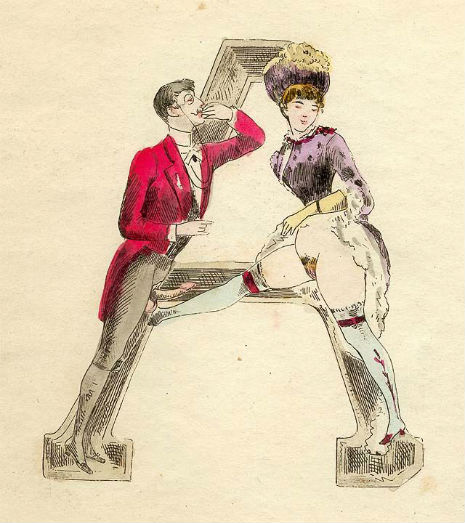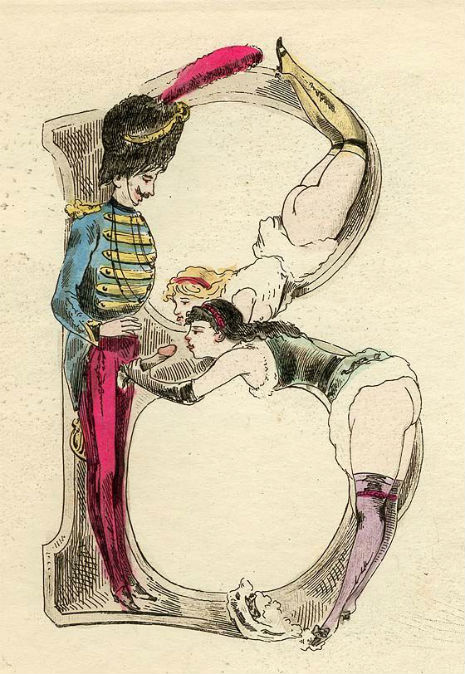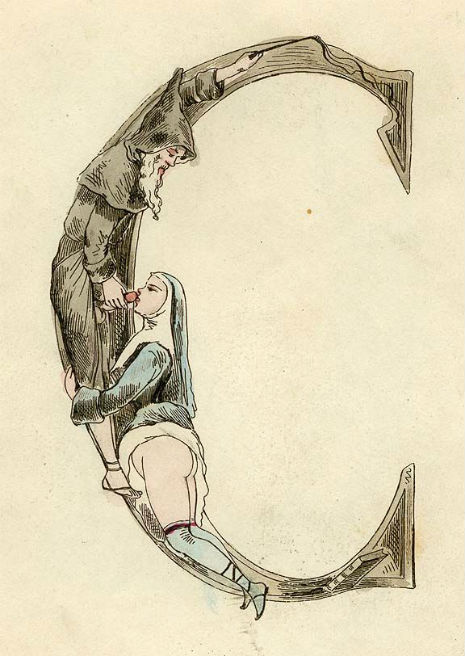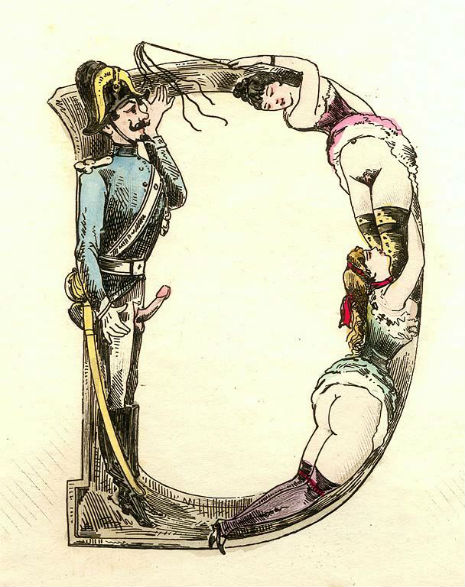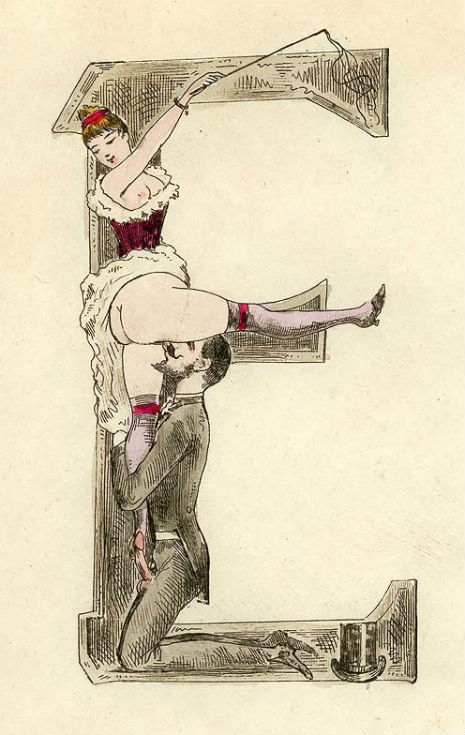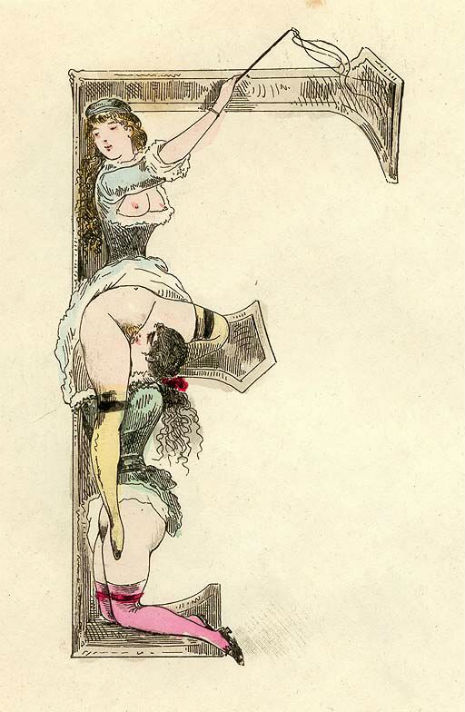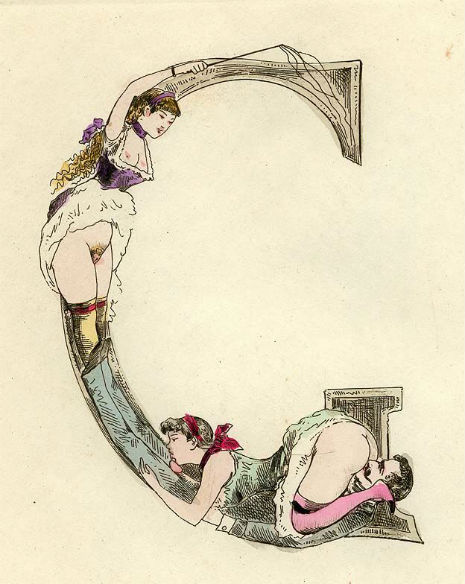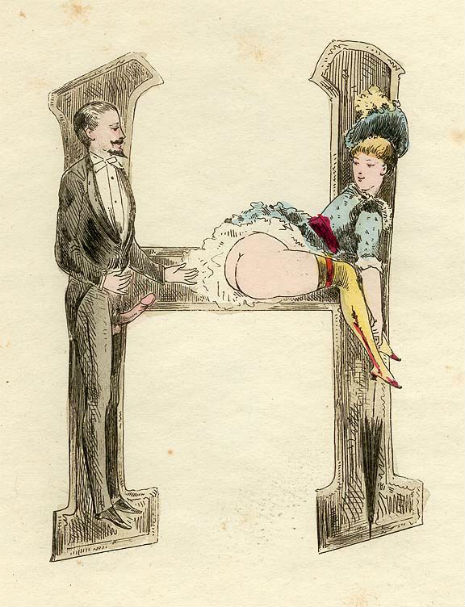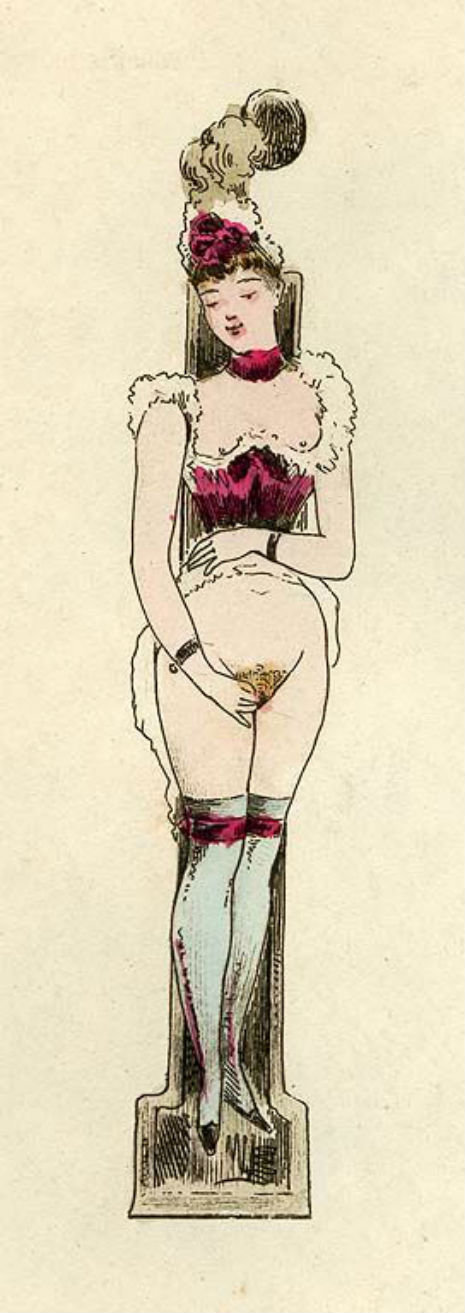
Your new favorite 19th-century naughty erotic typeface (NSFW)
I couldn’t find much about 19th century German artist Heinrich Lossow’s “smutty” alaphabet. In fact, I could only find one single online source that had all of Lossow’s dirty typeface together on one page. Perhaps there’s a reason why: these illustrations are also credited to a French artist namedJoseph Apoux. According to Apoux’s brief Wikipedia page, the series is called Erotic Alphabet and date back to 1880.
Heinrich Lossow (1843-1897) was known for his Rococo-style paintings and pushing the envelope when it came to inserting pornographic details into his paintings. The most notable one being The Sin, circa 1880. French artist Joseph Apoux had the same reputation as Lossow.
In the end, I’m going with Joseph Apoux as the one responsible. There’s slightly more information pointing towards him concerning these naughty letters.